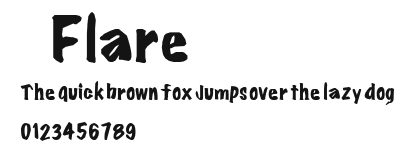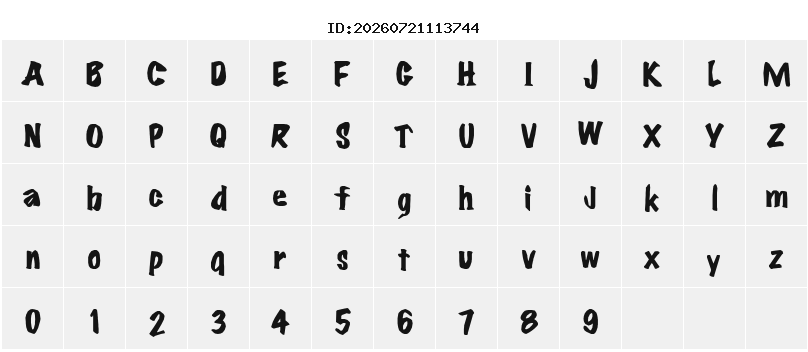
• Font Name: ©Flare
• Full Font Name: ©FlareBold
About ©Flare.ttf
©Flare.ttf is a modern, elegant sans-serif font designed for ultimate readability and visual harmony. Perfect for branding, headlines, web design, and print materials.